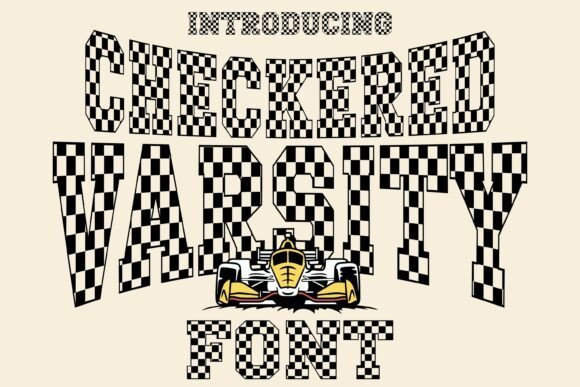
The Winning Combination: Where Style and Speed Meet
Do you remember the rush of excitement as you watched your favorite racing team speed down the track, their logo emblazoned on the side of their sleek vehicle? For many of us, the world of motorsport is a thrilling spectacle that combines high-octane action with a dash of style and sophistication. But what if you could capture that same essence in your designs? Enter the Checkered Varsity Font, a vibrant and assertive typeface that pays homage to the electrifying spirit of racing and the timeless style of classic varsity.
Whether you’re a designer, a sports enthusiast, or simply someone who loves the thrill of the track, the Checkered Varsity Font is a valuable tool in your creative arsenal. Its sharp outlines, vintage block letters, and distinctive black-and-white checks evoke the dramatic visuals of a racing flag, injecting every project with a dose of adrenaline-fueled power and dynamism.
Checkered Varsity Font Key Features
- Font Family: Checkered Varsity Font is a unique, bold, and playful sans-serif font.
- Unique Characteristics: The font features a distinctive checkered pattern, adding a touch of whimsy and personality to designs.
Checkered Varsity Font Review
Overall, I think the Checkered Varsity Font has some great qualities, but also a few areas where it falls short.
- The font’s bold and playful nature is perfect for adding some visual interest to headings and titles.
- The unique checkered pattern adds a fun, dynamic touch to designs.
- The font is highly customizable, allowing for easy color and size adjustments.
- The font can be quite overwhelming if used extensively throughout a design. It’s best to use it sparingly to avoid visual fatigue.
- The checkered pattern can sometimes be distracting, especially in smaller text sizes.
- The font may not be suitable for formal or professional designs, as it has a more playful tone.
Overall, I’d give the Checkered Varsity Font 3.5 out of 5 stars. While it’s a great choice for adding some personality to designs, it’s not suitable for every project. Use it sparingly and with caution, and it can add a fun and unique touch to your work.
The Checkered Varsity Font is ideal for creating a bold and eye-catching visual identity. Use it for:
1. Sports-themed designs, such as jerseys, posters, and flyers.
2. Academic and school-related designs, such as diplomas, certificates, and report covers.
3. Retro-themed designs, such as posters, flyers, and business cards.